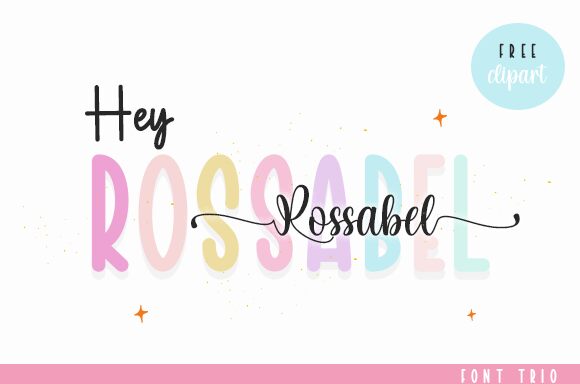
Experience the beautiful Rossabel font, designed by Nopianti. This stunning calligraphy style font is perfect for creating captivating headlines and titles. With its light weight, Rossabel is ideal for crafting gorgeous logos, branding projects, and decorative invitations. It can also be used to craft stunning signage and labels that will stand out from the crowd.
Rossabel
Nopianti